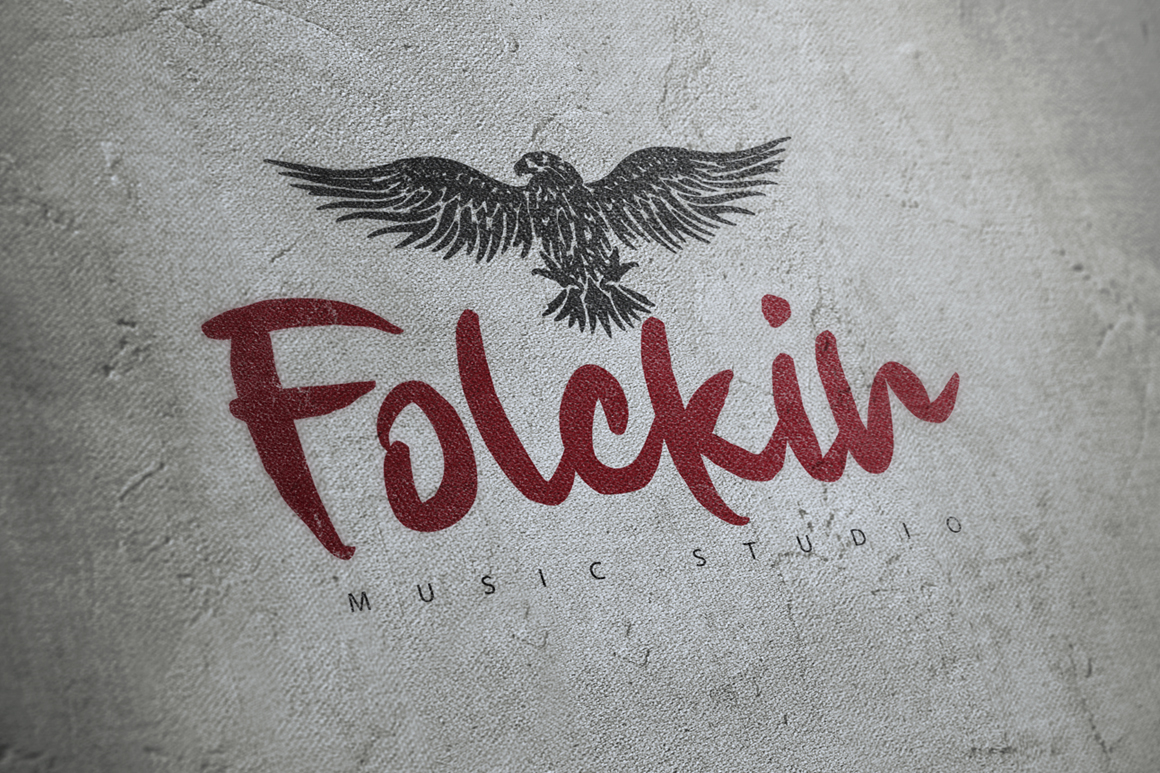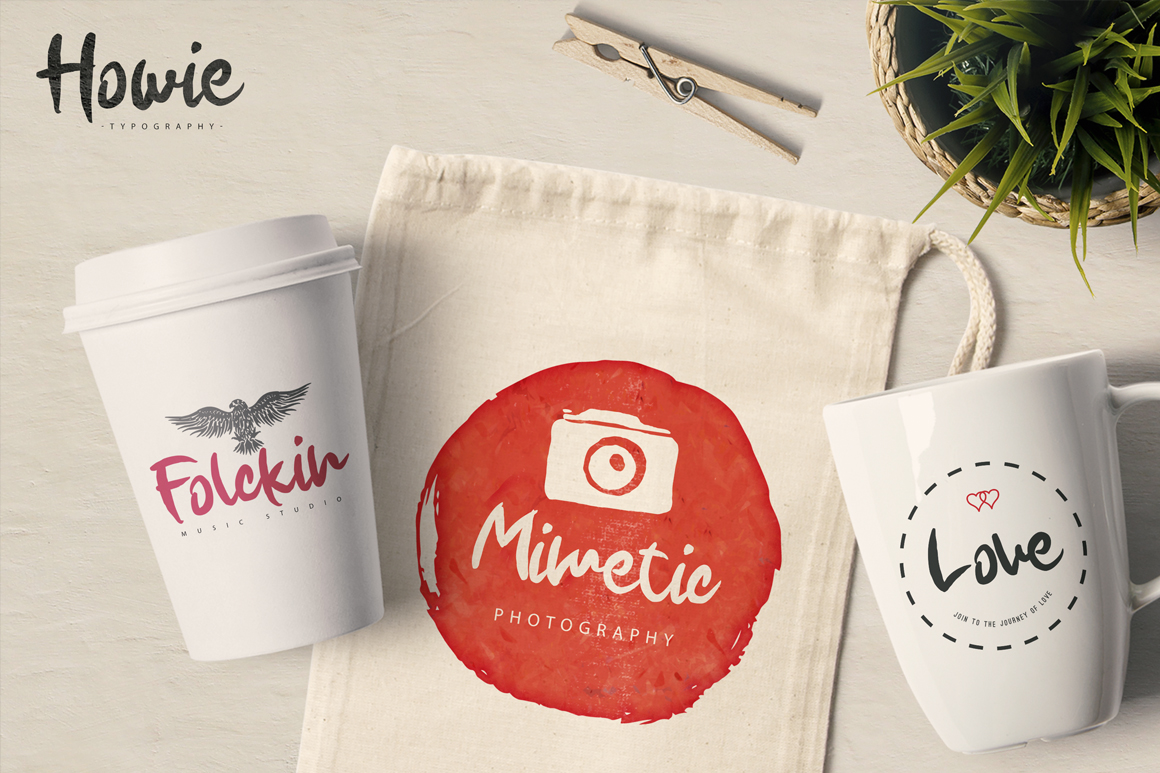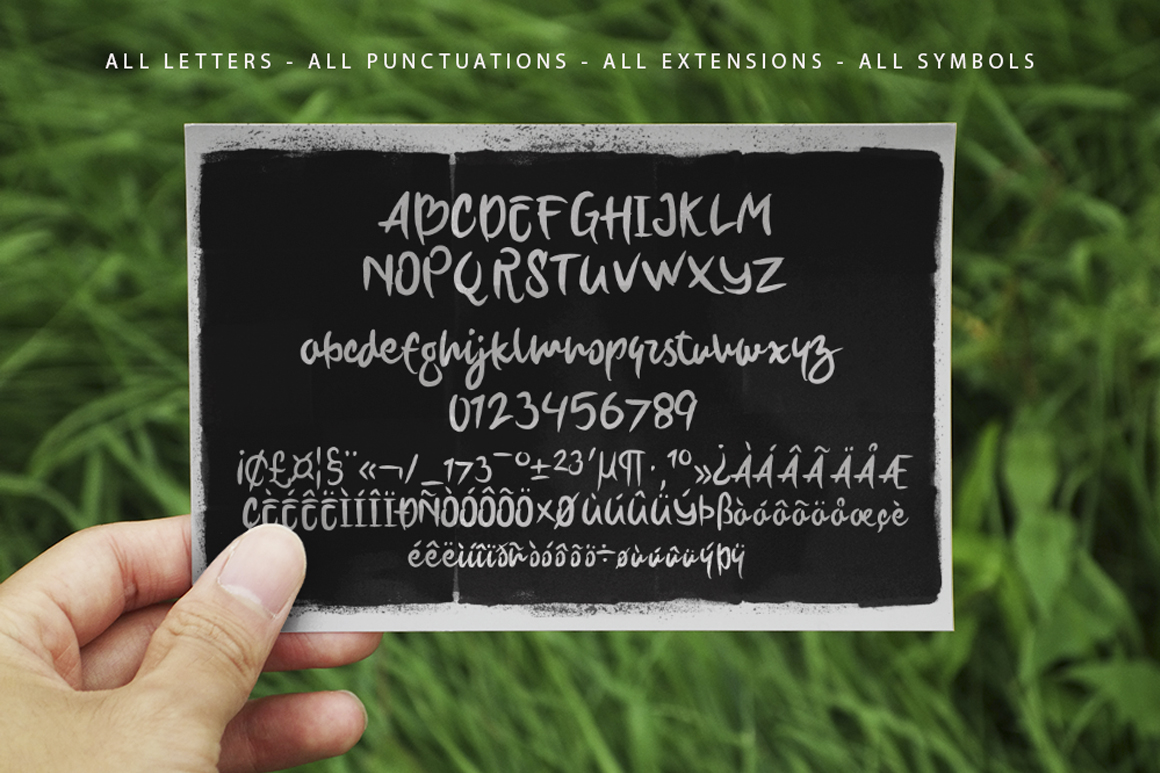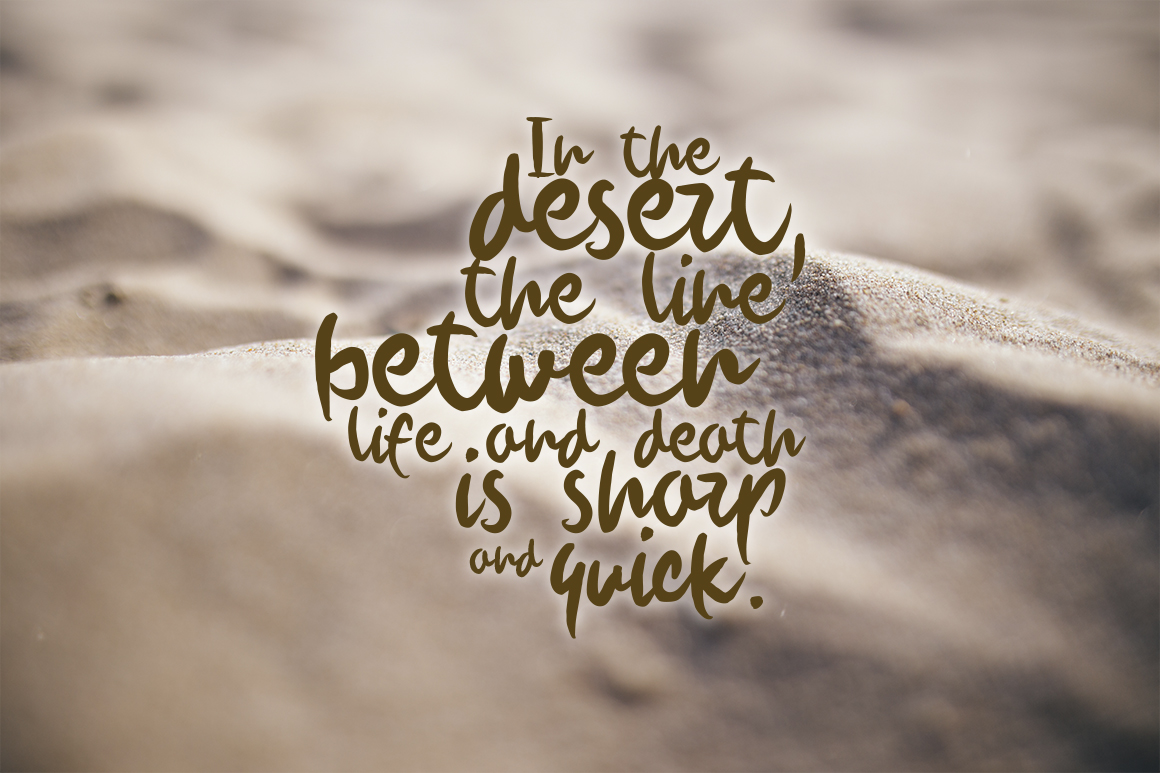
Howie Font
About Howie Font
Howie is a playful brush font.
The font has been crafted completely on paper by Pere Esquerrà. After ever letter was perfected to create a coherent and smooth looking font, the font where digitized and smoothed over until they where perfect.
The result is a beautiful font that comes with the following variations:
Howie Script
Howie Bold
Howie Light